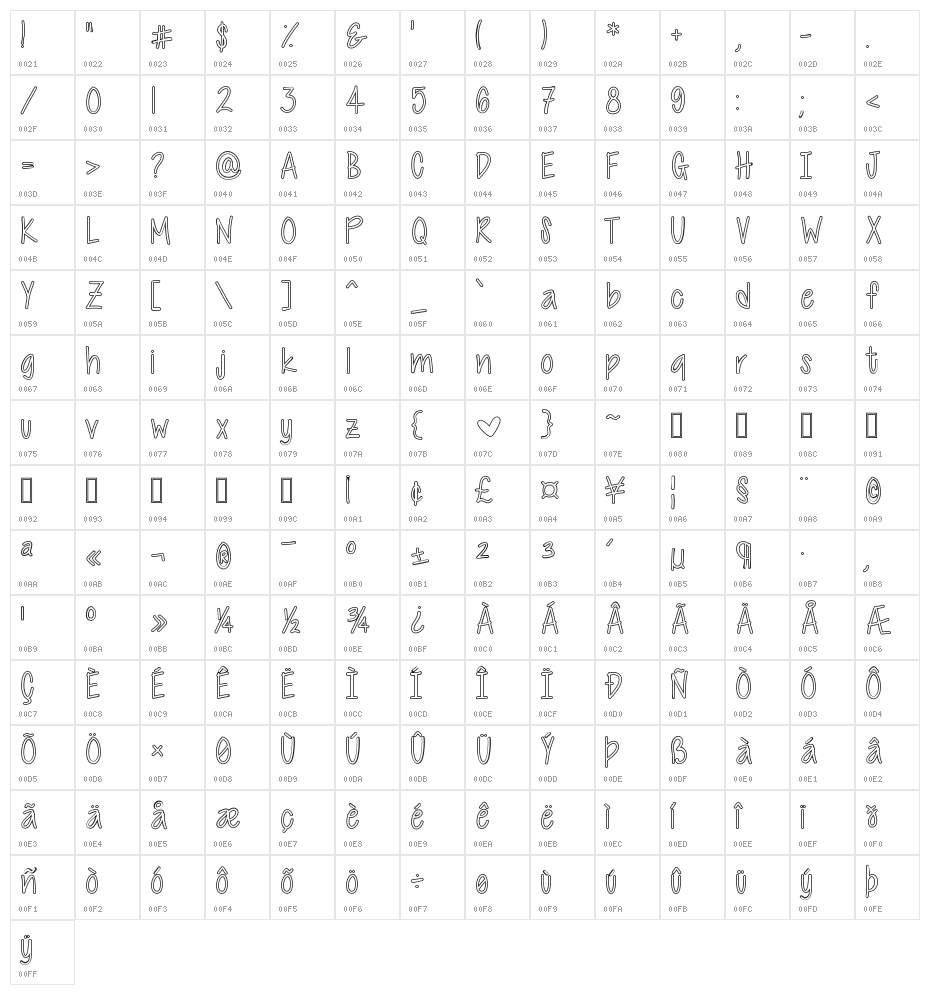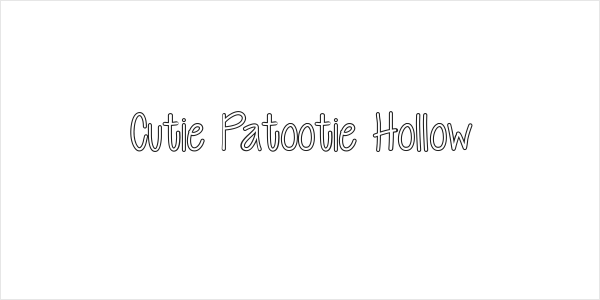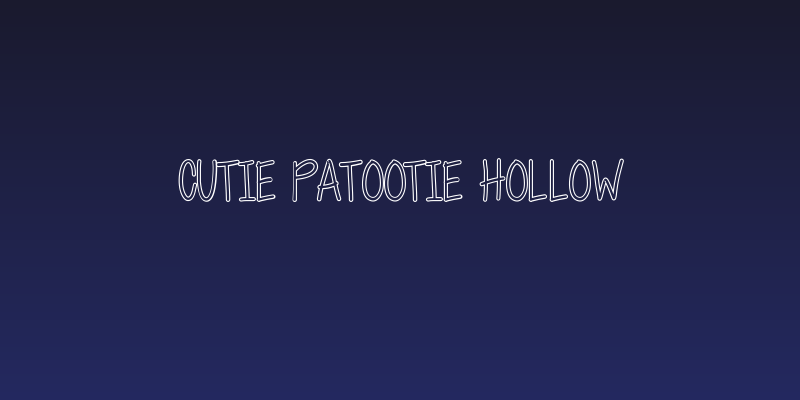
Cutie Patootie Hollow Font
Cutie Patootie Hollow Description
This playful and whimsical font features hollow, hand-drawn characters that exude a sense of fun and creativity. The uppercase and lowercase letters maintain a consistent style with rounded edges and a casual, informal appearance. The numbers and special characters follow the same design, ensuring a cohesive look across all elements. The font's hollow design adds a unique touch, making it stand out in various applications. Its friendly and approachable style makes it suitable for projects aimed at a younger audience or those seeking a lighthearted feel.
| Proposed Projects | Ideal for children's books, playful branding, greeting cards, and creative posters. |